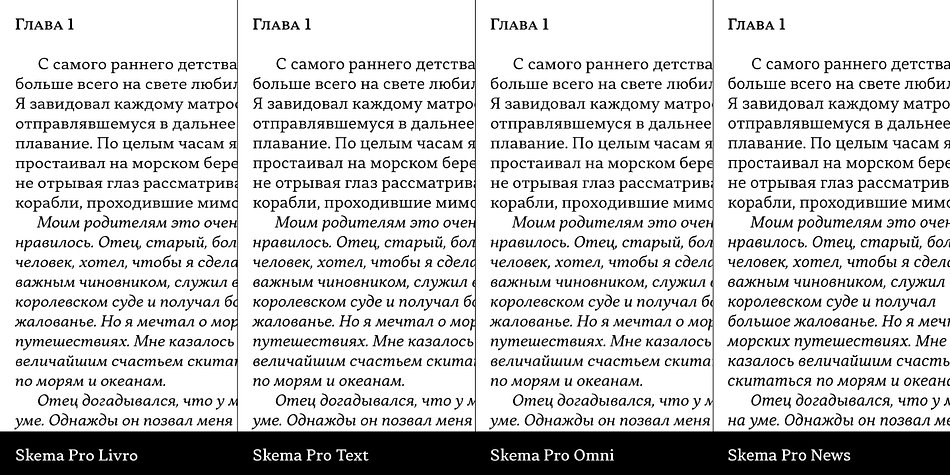
Skema Pro Super Family
Designed by Andriy Konstantynov, Skema Pro is a serif and serif font collection published by Mint Type.
Skema Pro is a diverse system of 6 serif typefaces - each bearing a distinct character and purpose. Together they form a huge superfamily of 84 fonts to fit any imaginable task.
Skema Pro Livro is a low contrast, low x-height typeface with an inclined axis. It is designed to work in books, where long ascenders and descenders along with increased line-spacing aid comfortable reading.
Skema Pro Text has low contrast, medium x-height, and slightly tilted axis. Its neutrality along with modern feel makes it default choice for long texts of any nature.
Skema Pro Omni features medium contrast, medium x-height, and slightly inclined axis. Being a more contrasted version of Skema Pro Text, it shares its intent of usage, however, creates a different texture with a more formal look.
Skema Pro News is a low contrast, large x-height typeface with the vertical axis. Works best in newspapers and in screen applications.
Skema Pro Title has medium contrast, large x-height, and vertical axis. Designed to work in larger text sizes, it offers contemporary detailing for pull-quotes and subheadings.
Skema Pro Display is a typeface with high contrast, large x-height, and vertical axis. It shows its features in large text sizes, such as editorial headings.